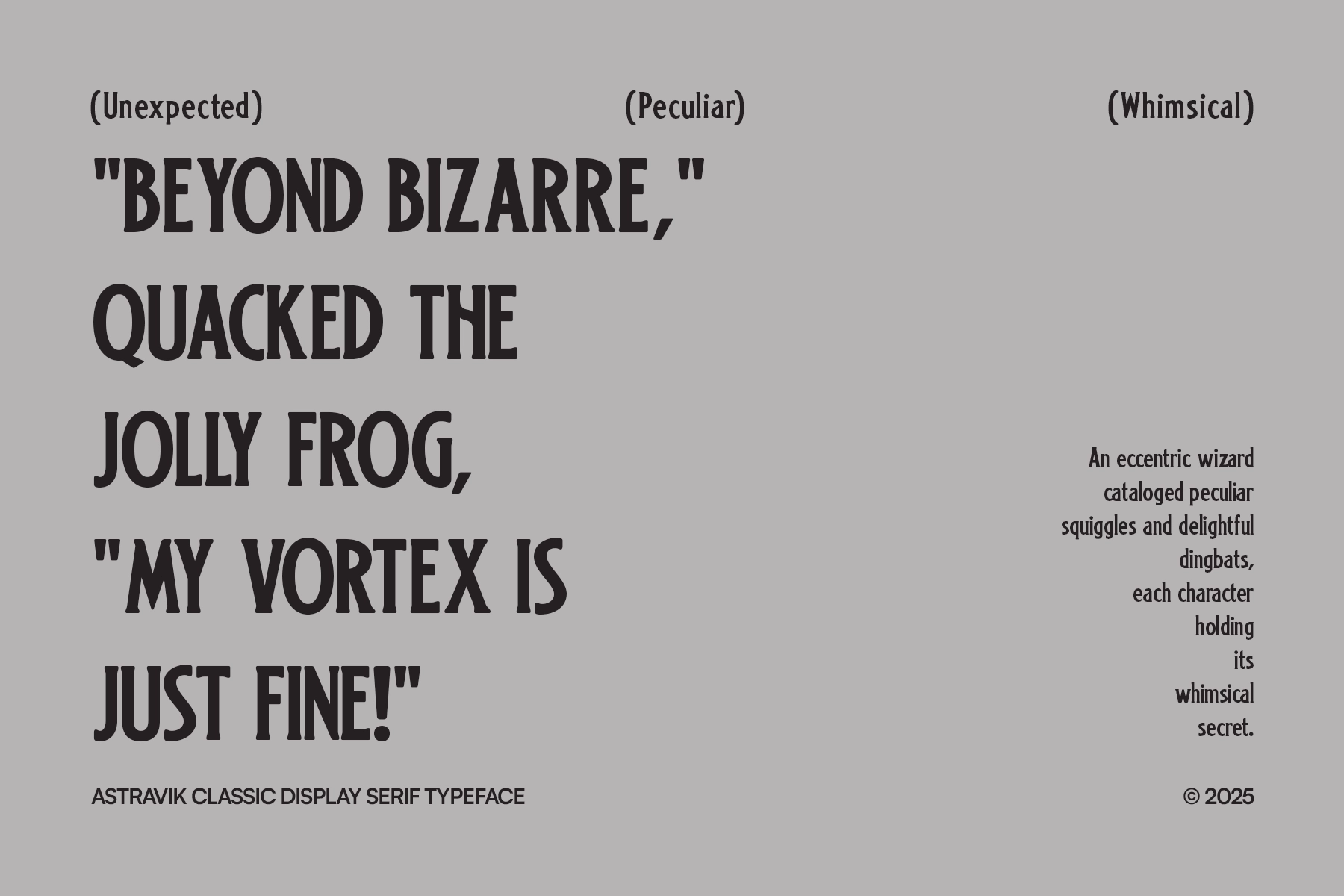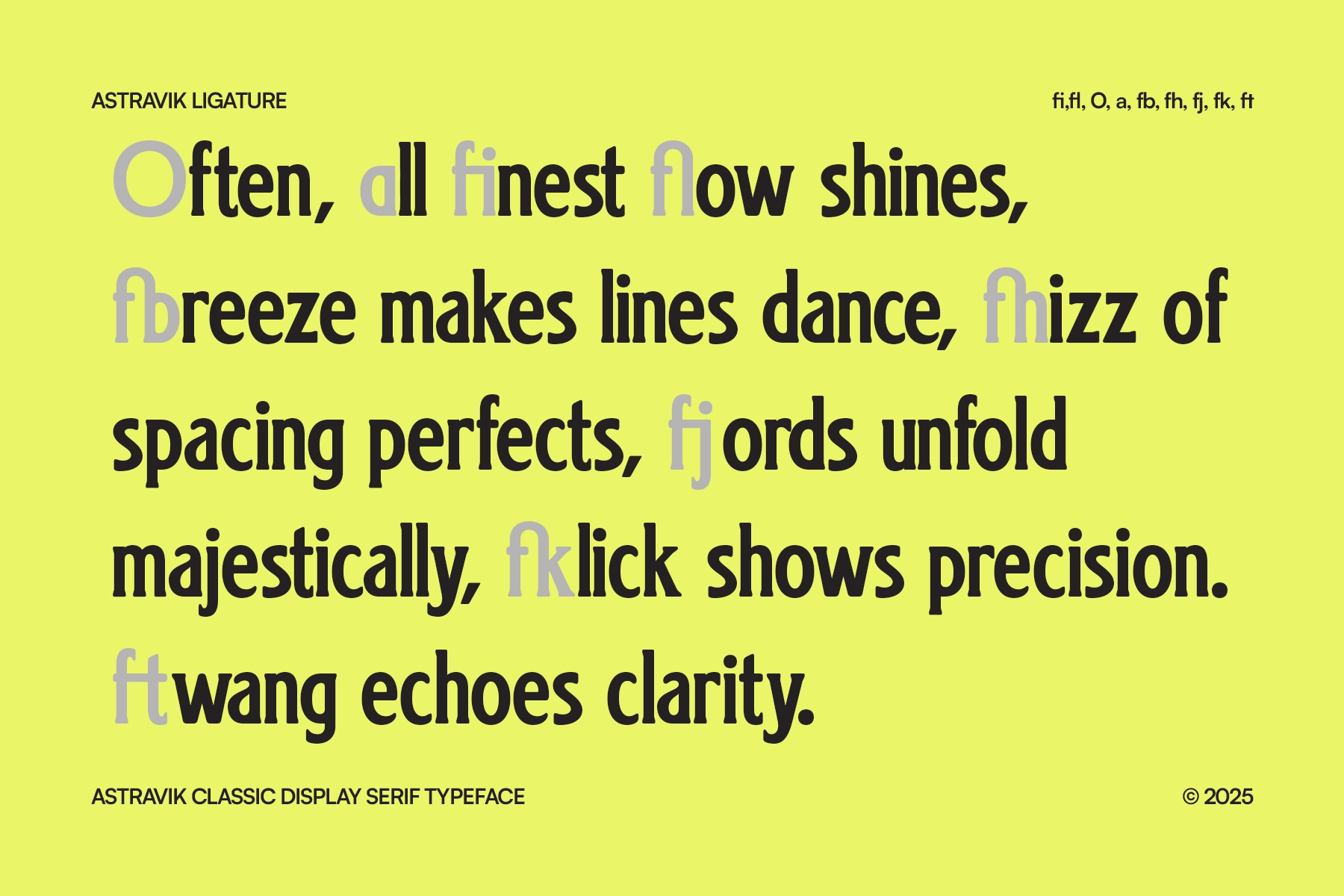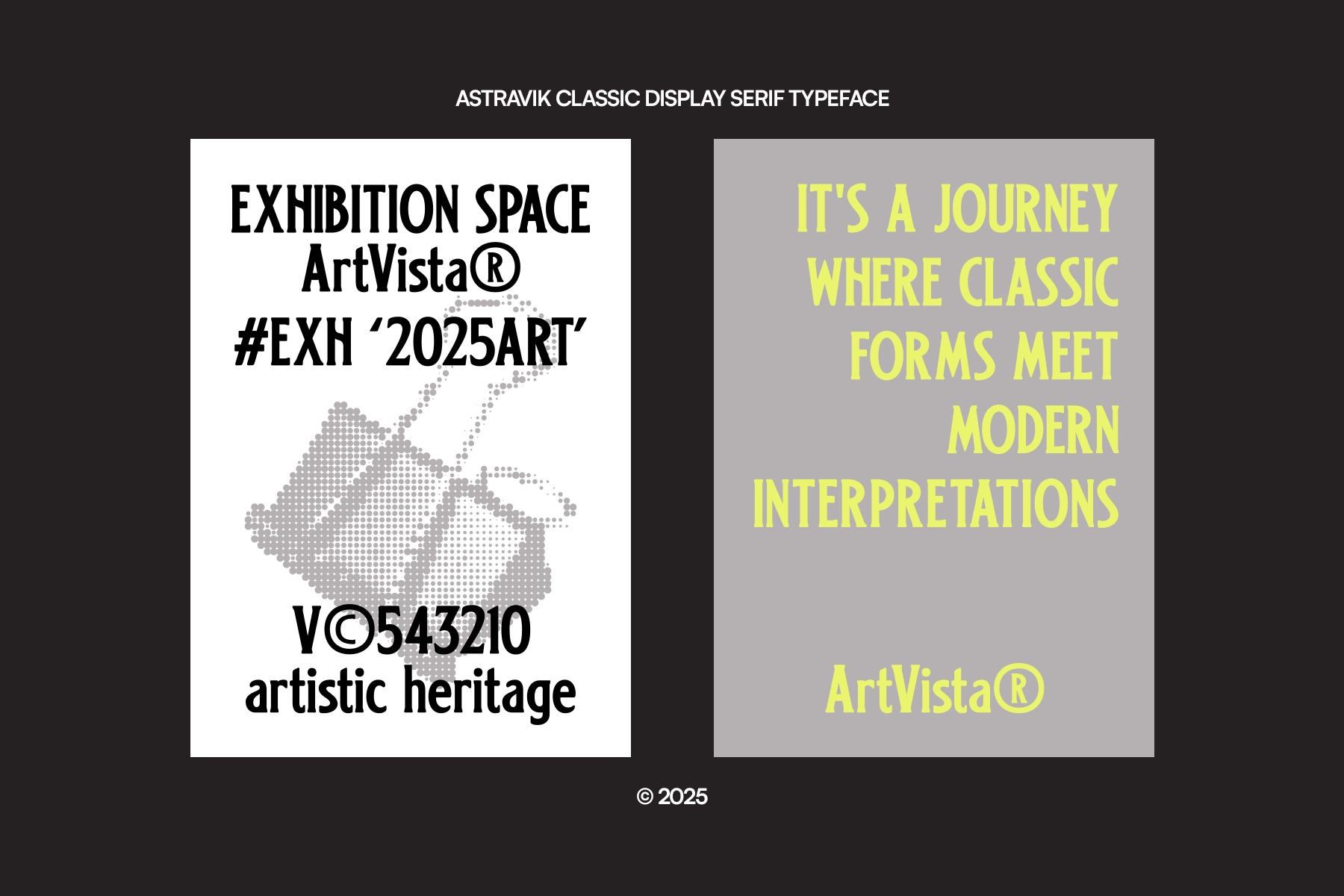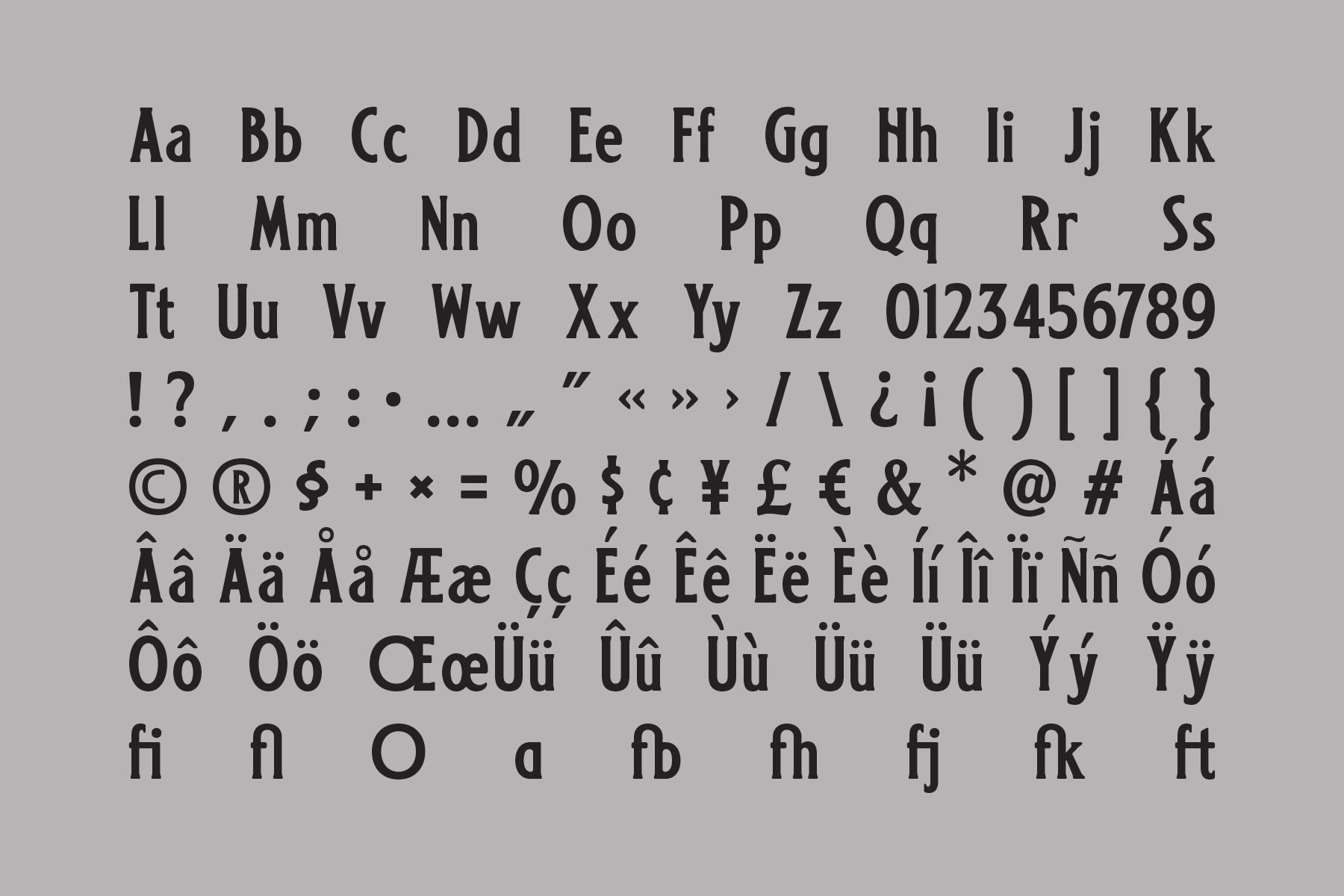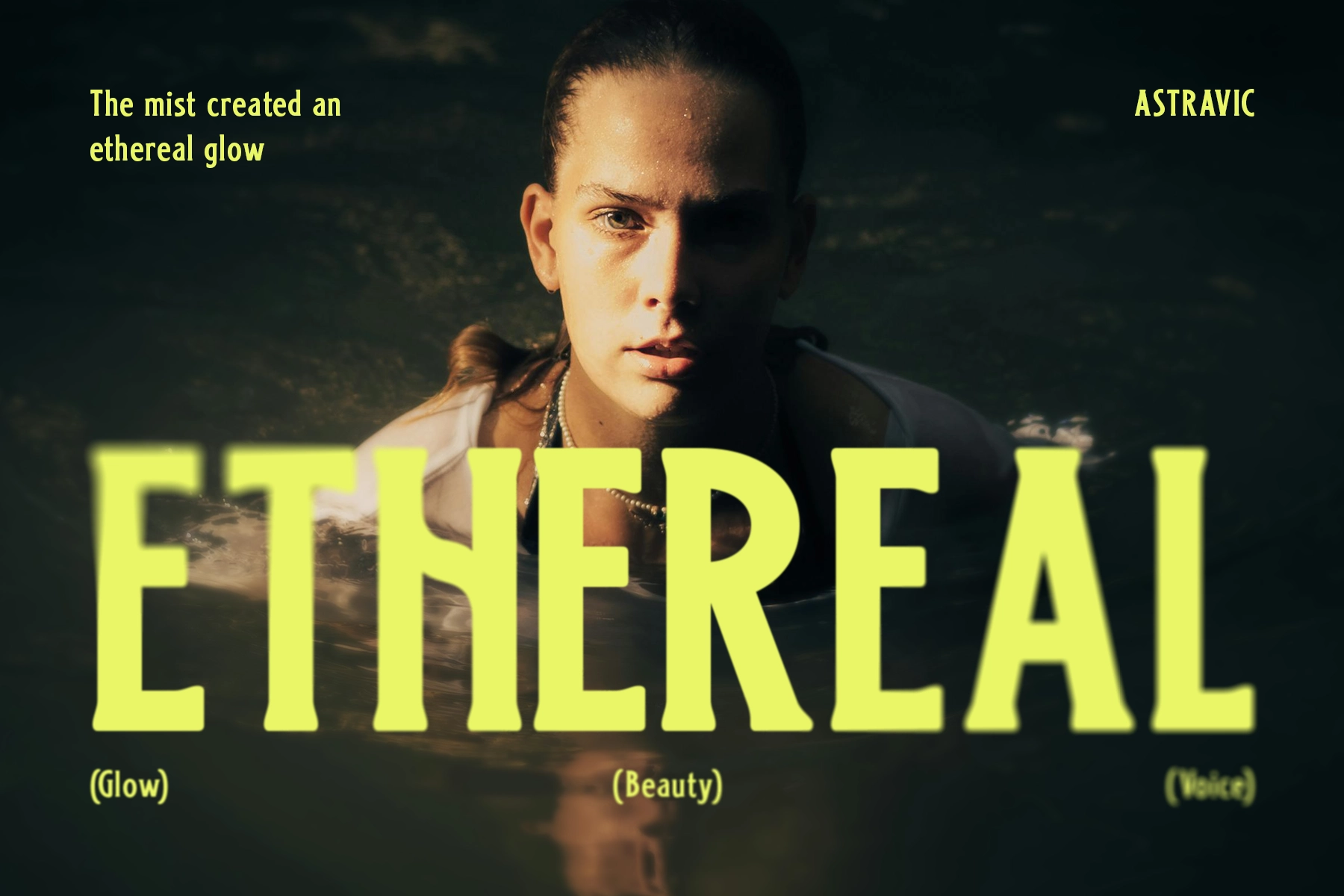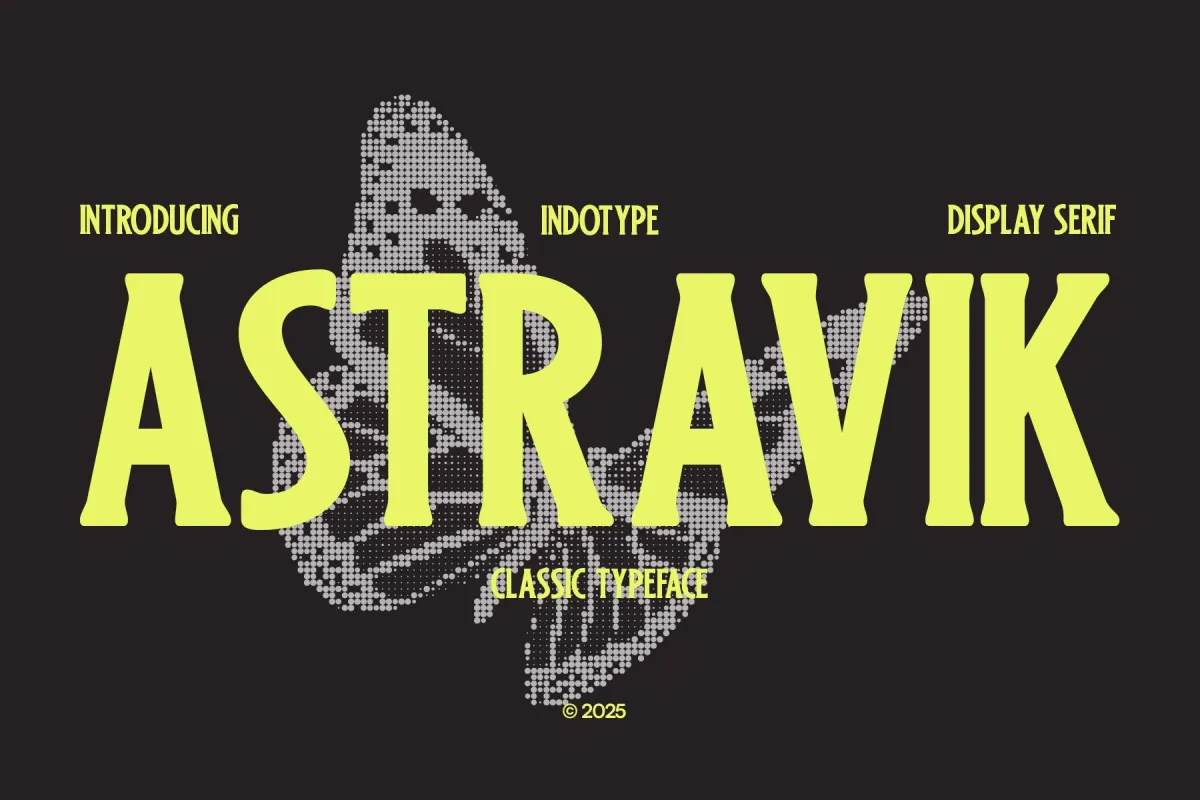
Astravik - Classic Display Serif
Astravik – Classic Display Serif is a refined and powerful typeface that merges traditional serif elegance with a bold contemporary edge. Designed with strong vertical proportions, sharp detailing, and expressive contrast, this classic display serif delivers a commanding presence in any layout.
The letterforms balance precision and character, combining structured forms with subtle handcrafted nuances. This gives Astravik a timeless yet distinctive look—perfect for designers who want typography that feels both sophisticated and memorable. Whether used in large headlines or identity systems, it brings clarity, confidence, and visual authority.
Crafted for impactful display use, Astravik transforms text into a central design element, making it ideal for projects where typography needs to stand out while maintaining a premium aesthetic.
• Ligatures
• Numerals & Punctuation